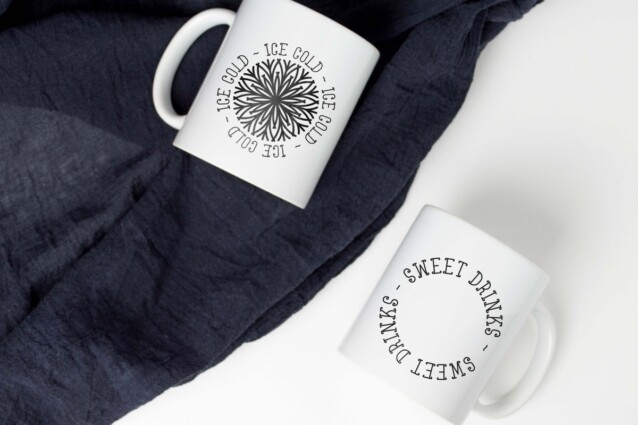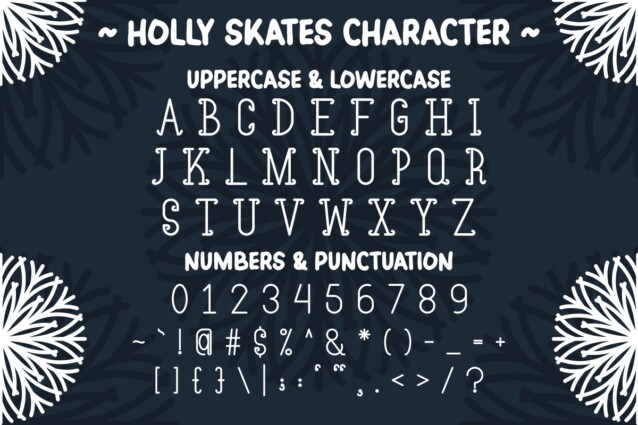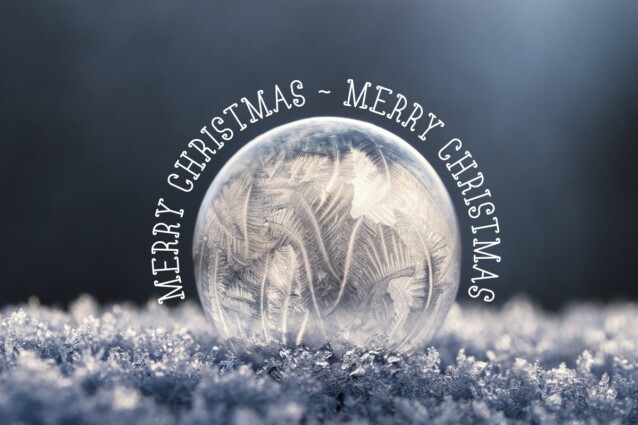
Holly Skates Font
Holly Skates Font, the enchanting winter display font that seamlessly combines the magic of Christmas with the grace of ice skates. This unique typeface is designed to infuse your designs with the charm and elegance of the holiday season.